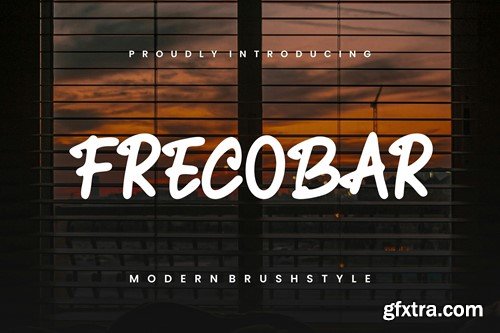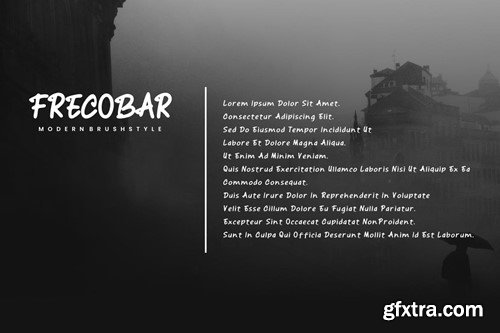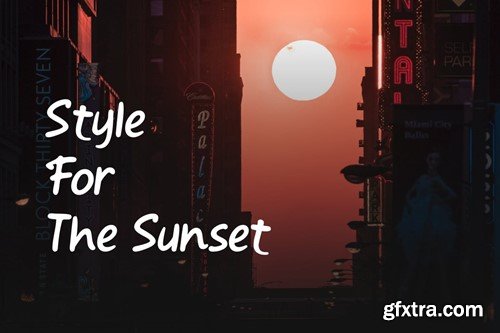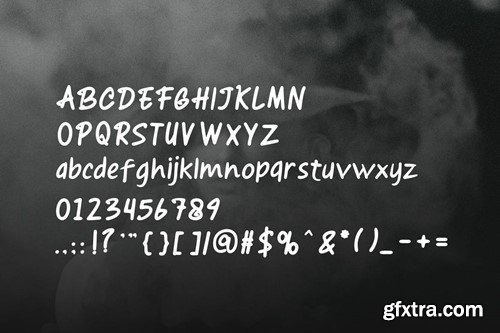
Frecobar现代笔刷字体风格。S562YEM
Frecobar Modern Brush Font Style.
Introducing our new product the name is Frecobar Font. Modern Decorative Fonts that feels beautiful classy, elegant, and modern. This font is perfectly suited for a wide variety of projects, such as signature, stationery, logo, wedding, typography quotes, magazine or book cover, website header, branding, packaging design, and more. Also, fashion-related branding or editorial design displays both masculine and feminine qualities. Features: File Included: – Frecobar Font( OTF, TTF ) Image: -not included